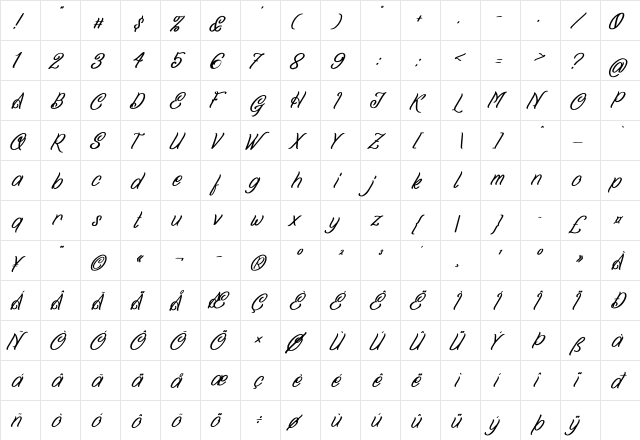
Spancer High Italic Regular
Design Context for Spancer High Italic Typeface
Spancer High Italic is a composed and adaptable typeface that performs quietly and consistently across a wide range of design contexts. The slanted form adds forward momentum and visual energy.
Pro Tip: Try Spancer High Italic for annotation and caption copy alongside an upright companion — the contrast in angle creates a dynamic but ordered typographic system.